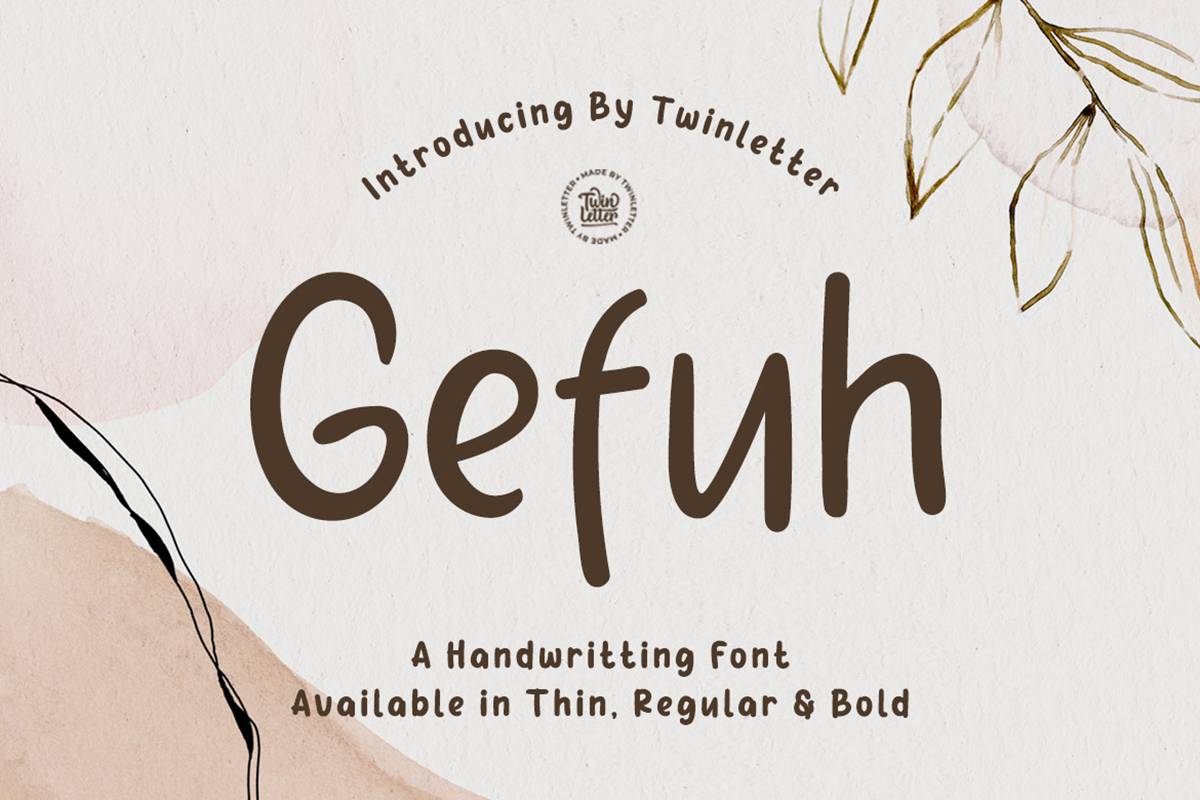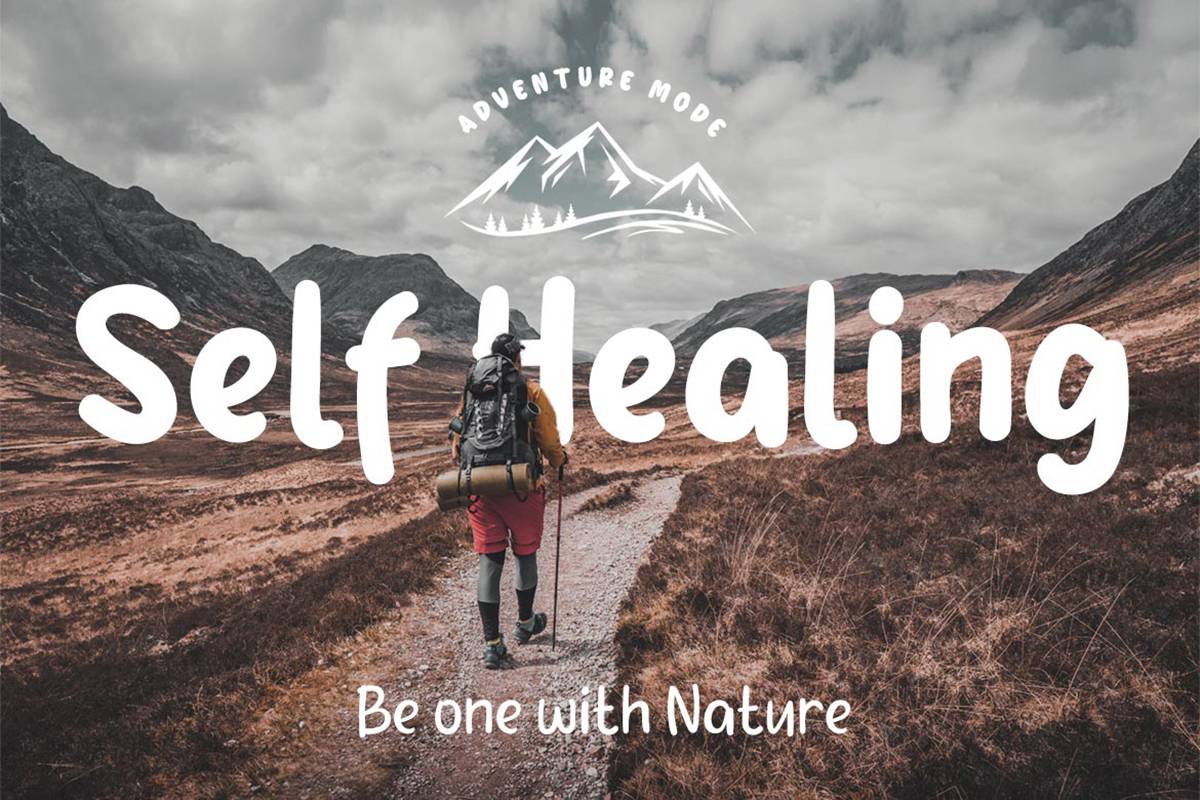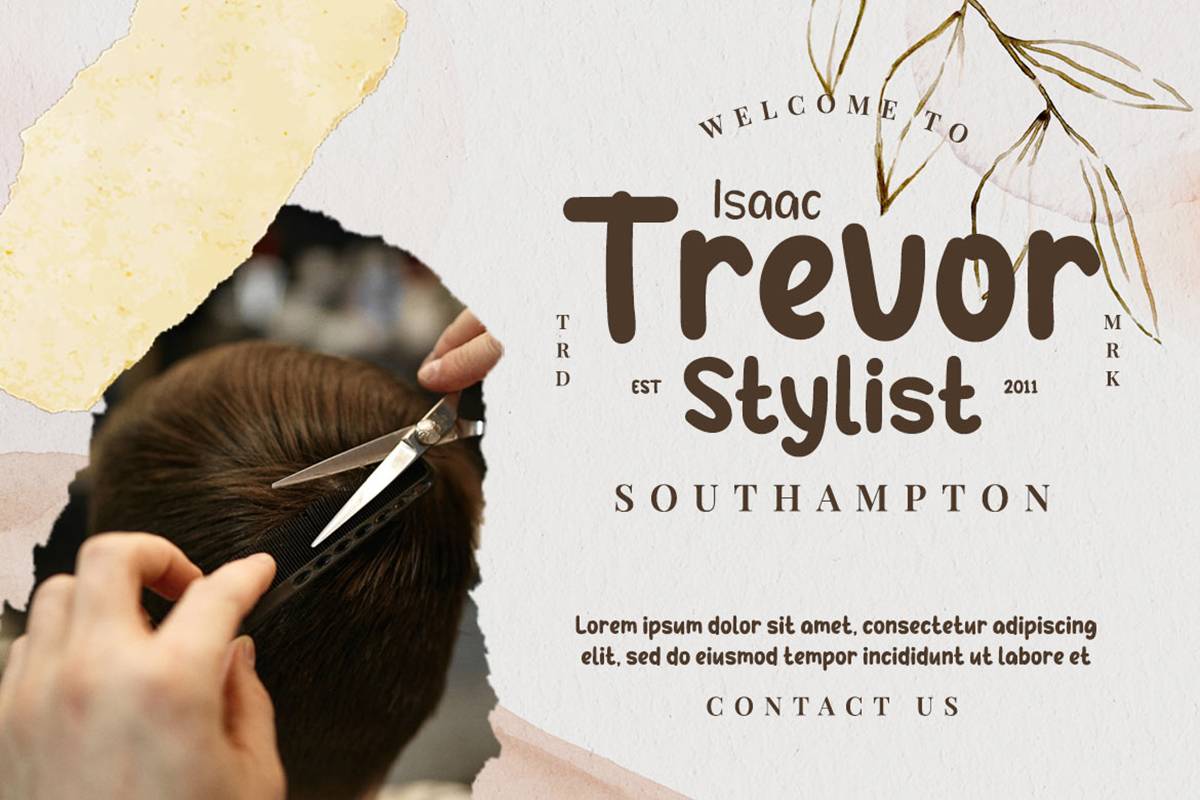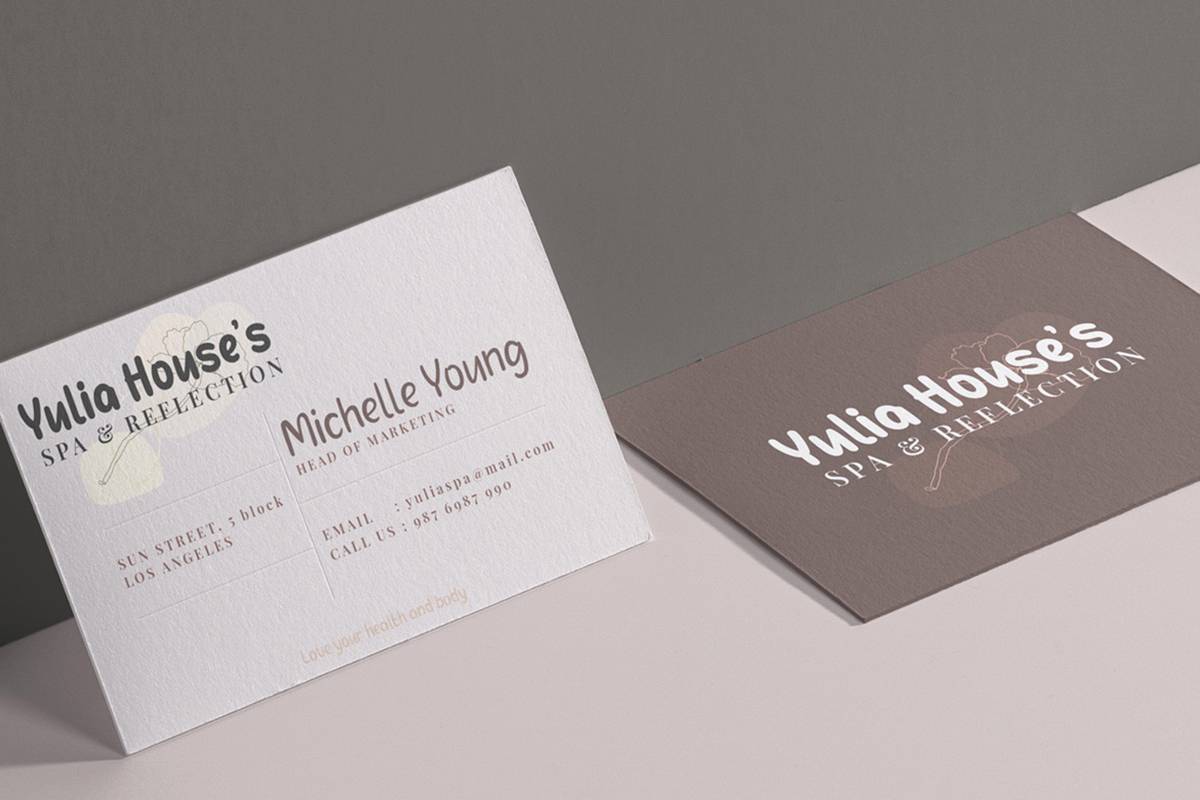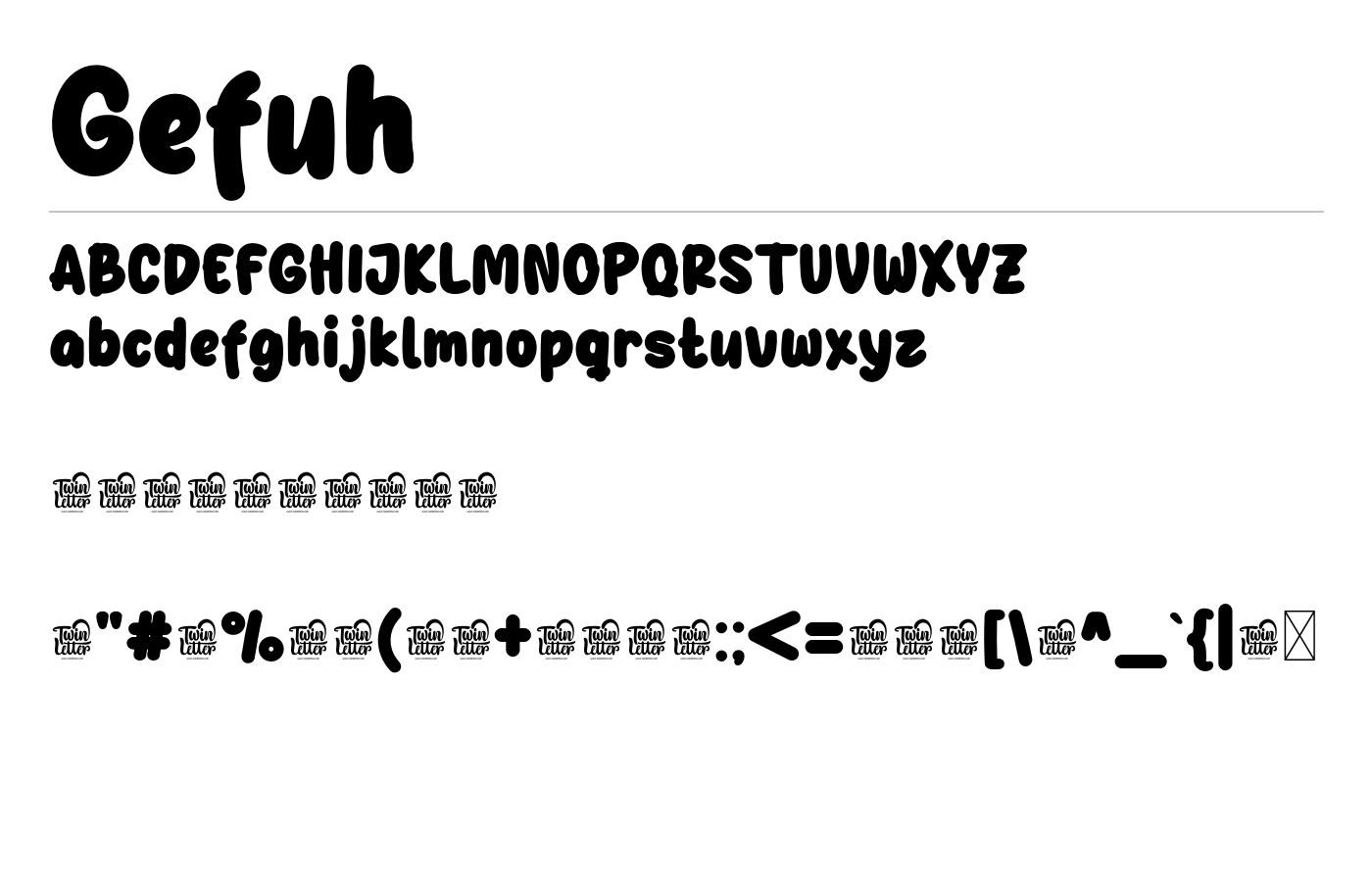
Gefuh is a playful and bold sans serif font with rounded, chunky letterforms that give it a friendly, approachable feel. Its consistent weight, generous spacing, and casual style make it ideal for informal branding, children’s materials, and fun headlines where a warm, welcoming vibe is desired. This font works well in designs aiming for personality and charm without sacrificing readability.
Gefuh Font
About Gefuh Font